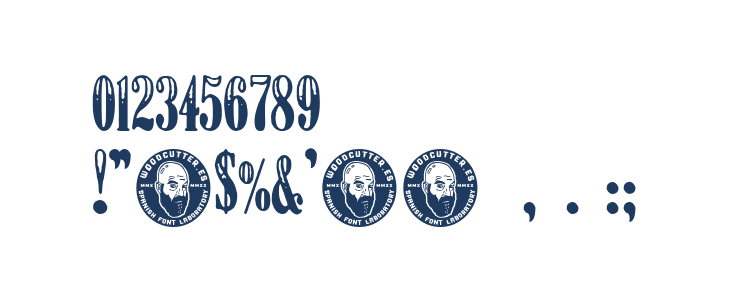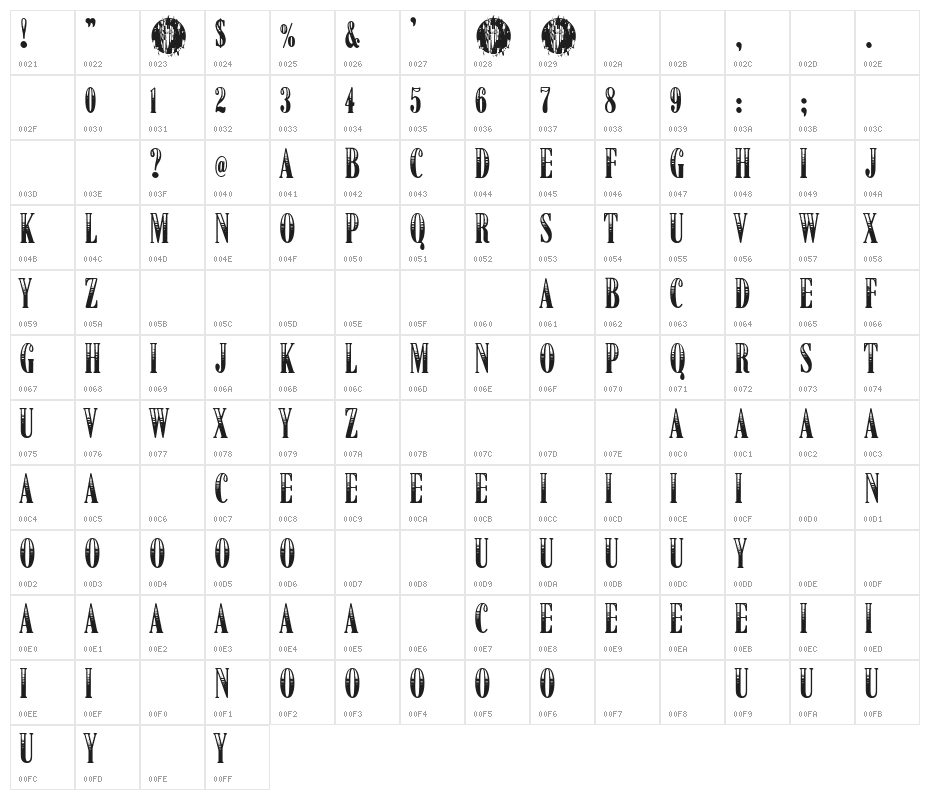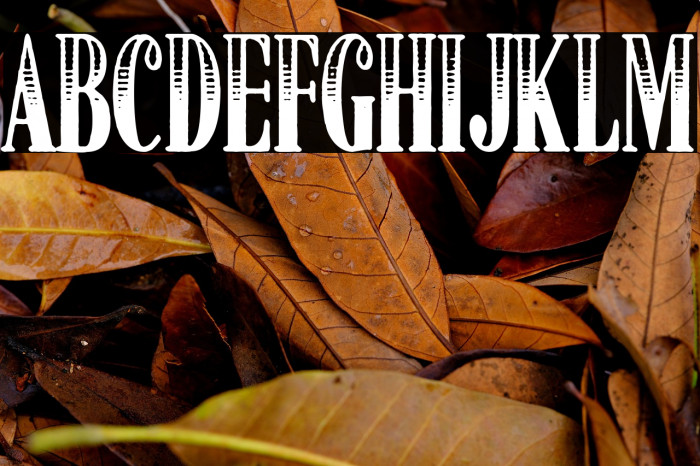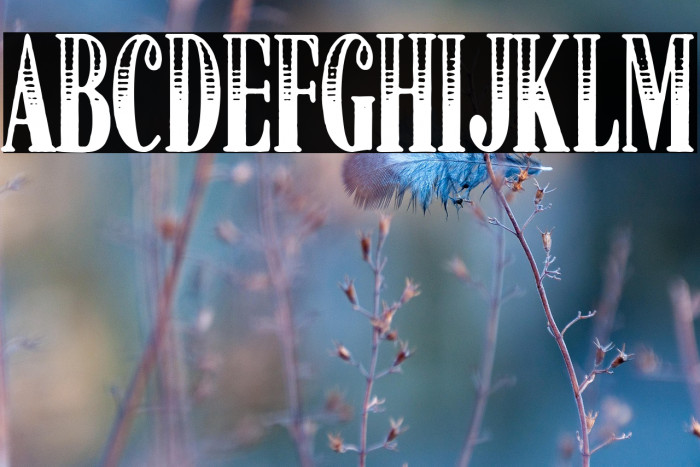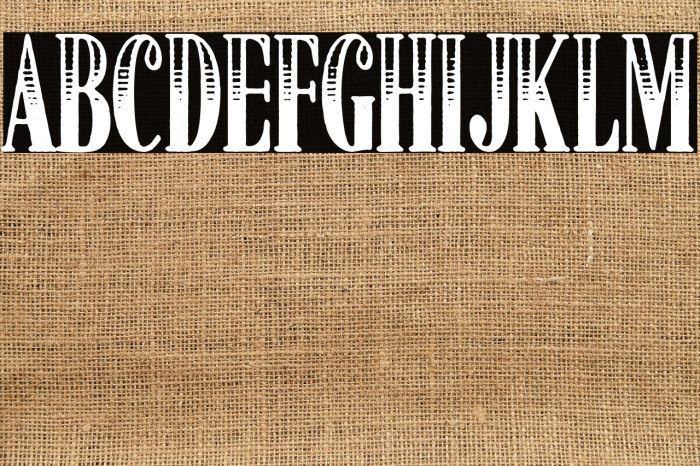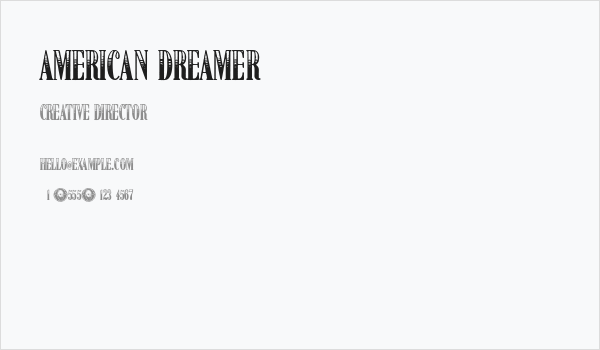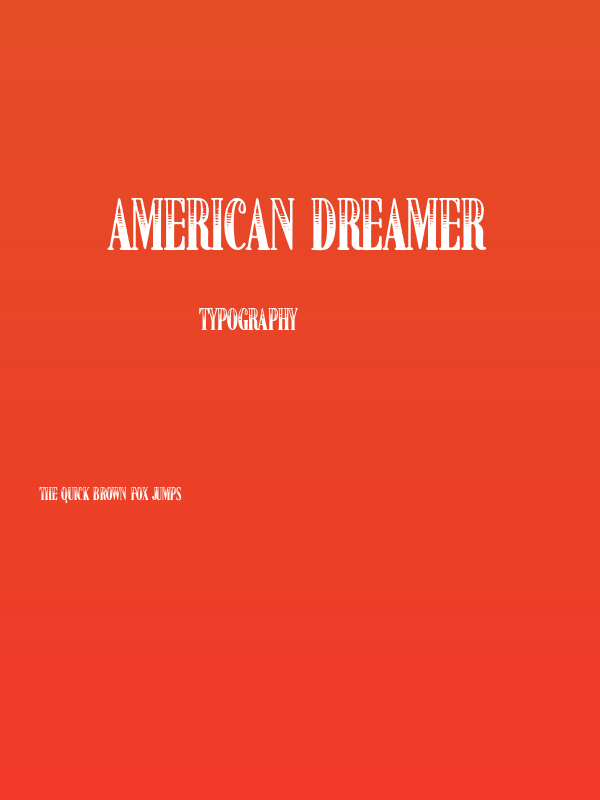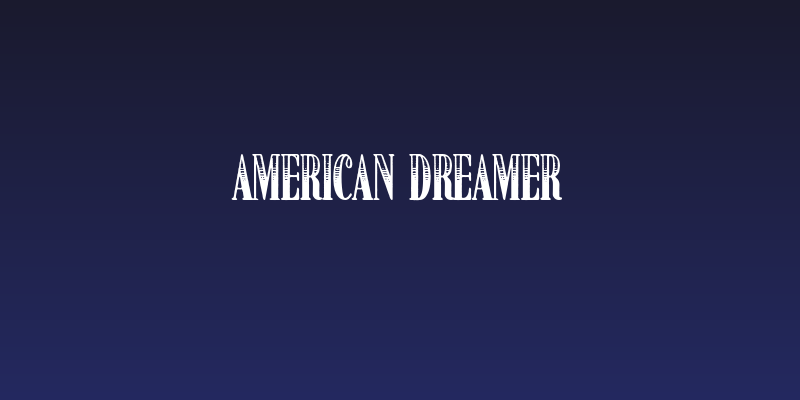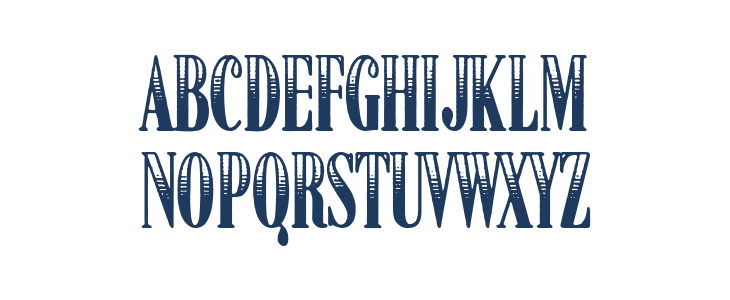
American Dreamer Font
American Dreamer Description
This font is a bold, decorative typeface with a vintage flair. The uppercase letters are tall and narrow, featuring unique, ornate serifs that add a touch of elegance. The lowercase letters maintain a consistent style, complementing the uppercase with their own distinctive flair. Numbers are bold and easily readable, making them suitable for various design applications. The special characters are crafted with the same attention to detail, ensuring a cohesive look across all glyphs. The font's overall appearance is reminiscent of classic woodcut or letterpress styles, making it ideal for projects that require a touch of nostalgia or a handcrafted feel.
Overall StyleVintage
Proposed ProjectsPerfect for vintage posters, branding, packaging, and any design that requires a classic, handcrafted aesthetic.